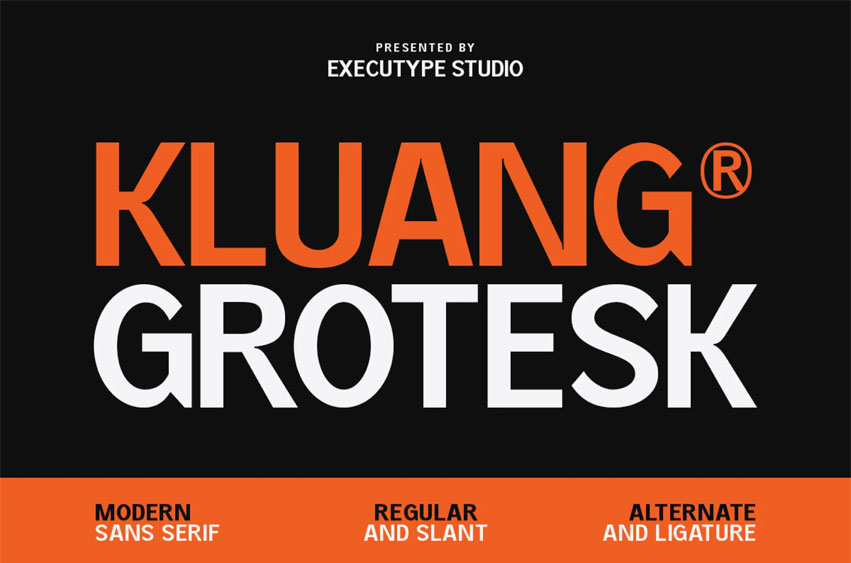
Kluang Grotesk Font
Kluang Grotesk Font is a clean, bold, and versatile sans serif typeface inspired by classic grotesque fonts, tailored for modern design needs. With a strong presence and excellent legibility, Kluang Grotesk is perfect for branding, editorial layouts, digital interfaces, advertising, and beyond.
This font comes in two styles — Regular and Slant — and includes a rich set of alternates and ligatures that give you creative control and flexibility for standout typographic compositions. Whether you’re designing a tech startup logo, a minimalist poster, or a sleek web interface, Kluang Grotesk brings clarity and character to every project.
• Modern grotesk style with clean geometry
• 2 styles: Regular and Slant
• Alternates & Ligatures for enhanced creativity
• Optimized for headlines & body text
• Branding & identity
• Editorial & magazine design
• Web and app interfaces
• Corporate presentations
• Signage, packaging & more